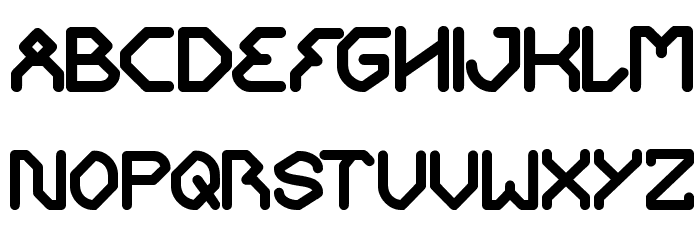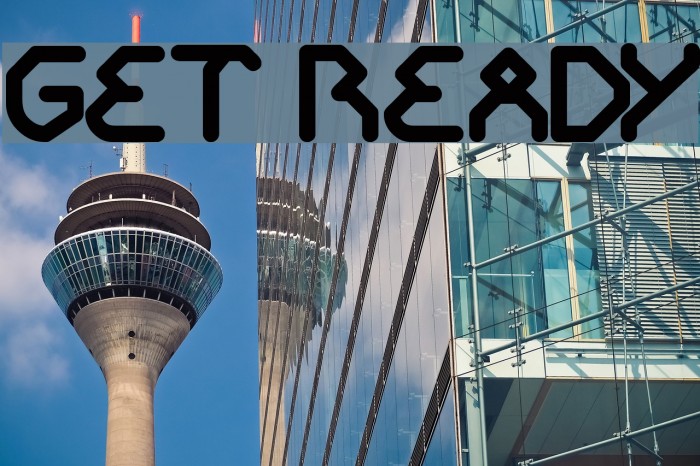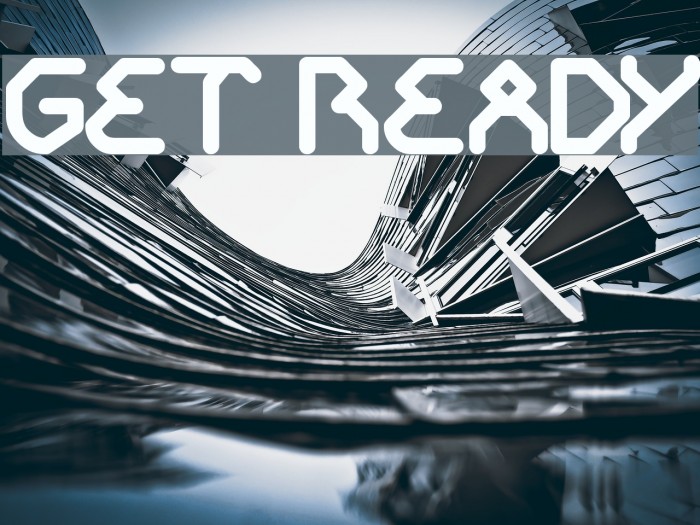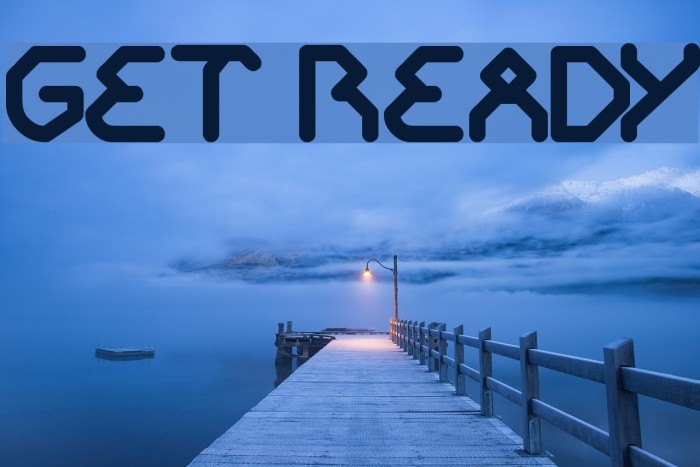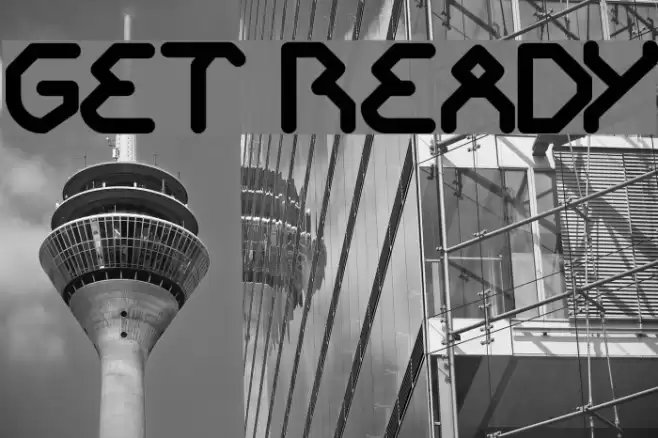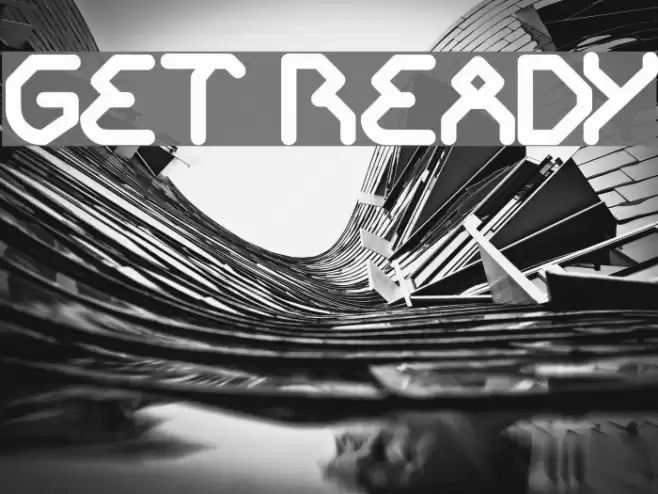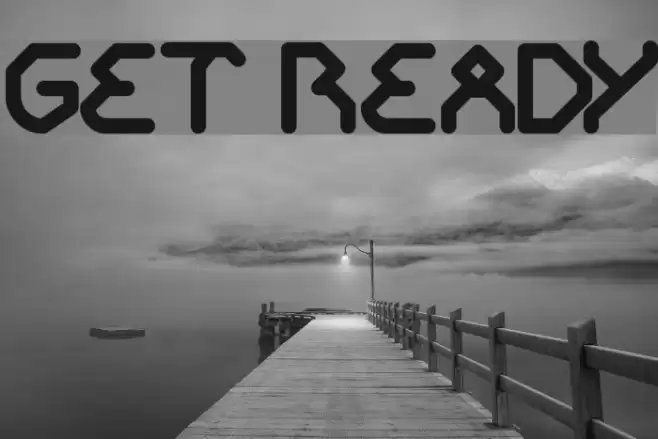
GET READY Font
This font features a bold, geometric design with a futuristic and digital aesthetic. The characters are constructed with consistent stroke widths, giving them a uniform appearance. The angular and blocky shapes of the letters create a sense of modernity and innovation. The uppercase letters are particularly striking, with sharp edges and a strong presence. This font is well-suited for projects that require a contemporary and tech-savvy look, such as digital interfaces, video game titles, or technology branding. Its boldness ensures readability while maintaining a unique style.
A bold, geometric font with a futuristic and digital aesthetic.
- Proposed Projects: Ideal for digital interfaces, video game titles, technology branding, and modern advertising.